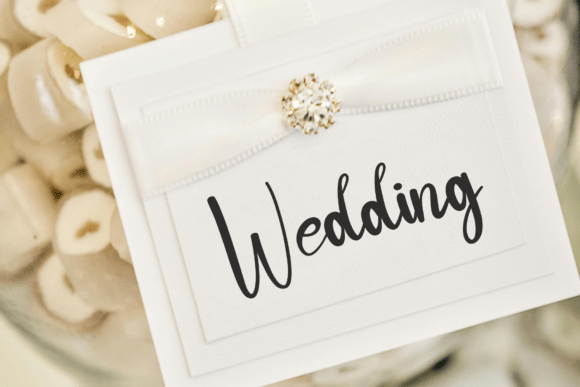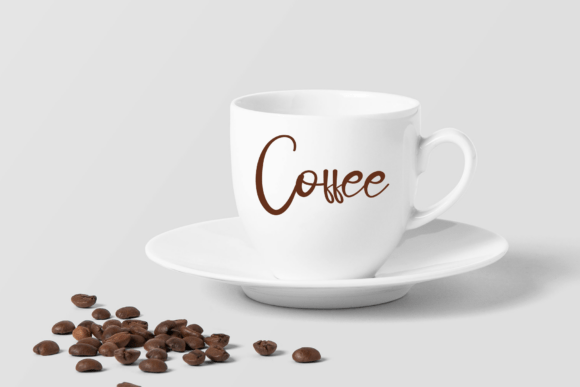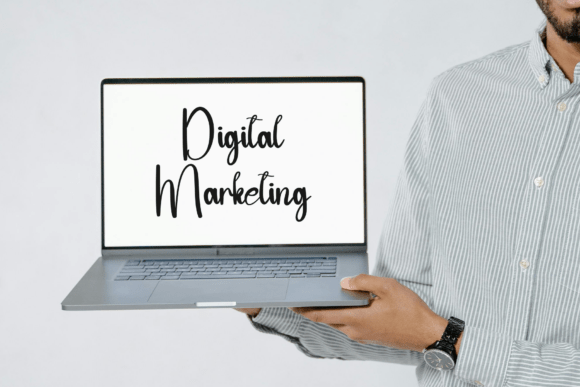
Introduction to Newyear Celebration Font
As a designer, there’s nothing quite like the thrill of seeing your creative vision come to life. It’s the moment when you step back, admire your handiwork, and feel a sense of pride and accomplishment. For many of us, that moment happens when we’re working on a project that requires a touch of elegance and sophistication, yet still maintains a relaxed, sporty vibe.
Enter the Newyear Celebration Font, a stunning handwritten font that’s sure to elevate your designs to the next level. With its marker-drawn feel and luxurious, yet casual aesthetic, this font is perfect for branding, logos, wedding supplies, greeting cards, fashion, lookbooks, and marketing promotions.
Newyear Celebration Font
- High-quality, unique font design ideal for creative projects and festive celebrations.
- Perfect for use in digital and print media, including social media graphics, posters, and greeting cards.
- Unique characteristics: decorative elements, intricate details, and a touch of elegance, making it perfect for adding a festive touch to any design project.
Honest Review: Newyear Celebration Font
I recently stumbled upon the Newyear Celebration Font, a design resource that caught my attention. At first glance, I was impressed with its high quality and unique design. The font is perfect for creative projects that require a festive touch.
While the Newyear Celebration Font is a great design resource, there are some limitations. The font may not be suitable for formal or professional projects, as it’s more geared towards casual and creative uses. Additionally, the font may not be compatible with all software or operating systems.
Overall, I’m impressed with the Newyear Celebration Font. It’s a great addition to any designer’s toolkit, and its free download makes it an attractive option for designers on a budget. Just be aware of its limitations, and use it for projects that are suitable for its design.
The Newyear Celebration Font is a unique and creative design resource that can add a touch of elegance to any project. With its transparent background and high-quality design, it’s perfect for use in various creative projects.
Tips for Getting the Most Out of the Newyear Celebration Font
Here are some tips for getting the most out of the Newyear Celebration Font:
- Use it in conjunction with other design elements to create a cohesive look.
- Experiment with different font sizes and styles to add emphasis.
- Combine it with a transparent background to create a modern look.
The Newyear Celebration Font is perfect for various creative projects, including: